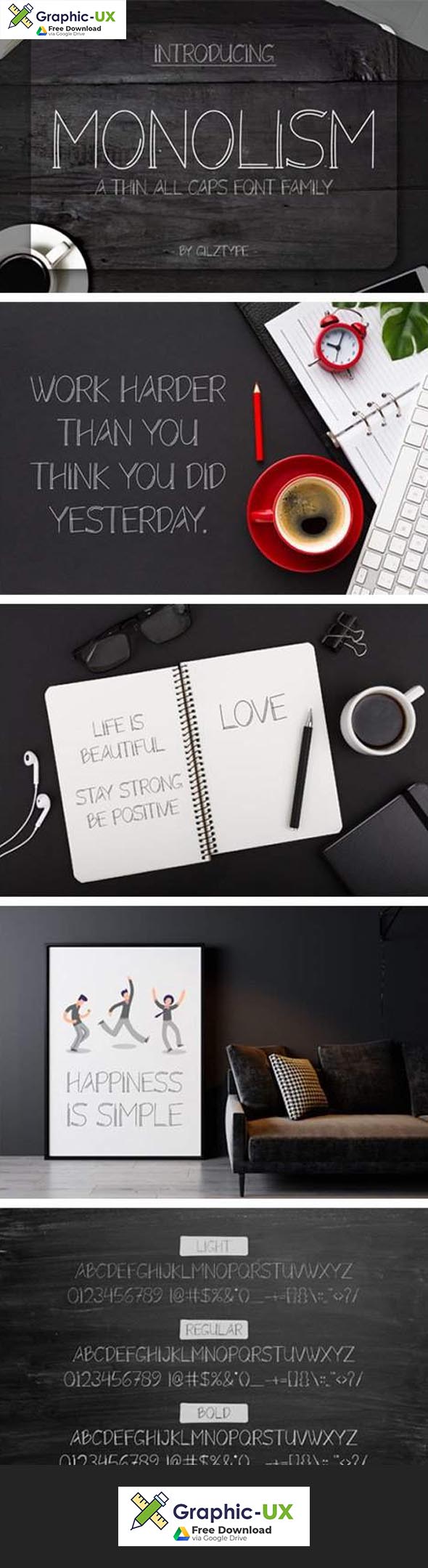
Monolism Font
Monolism is a simple, unique and minimalist handwritten font. Masterfully designed to become a true favorite, this font has the potential to bring each of your creative ideas to the highest level